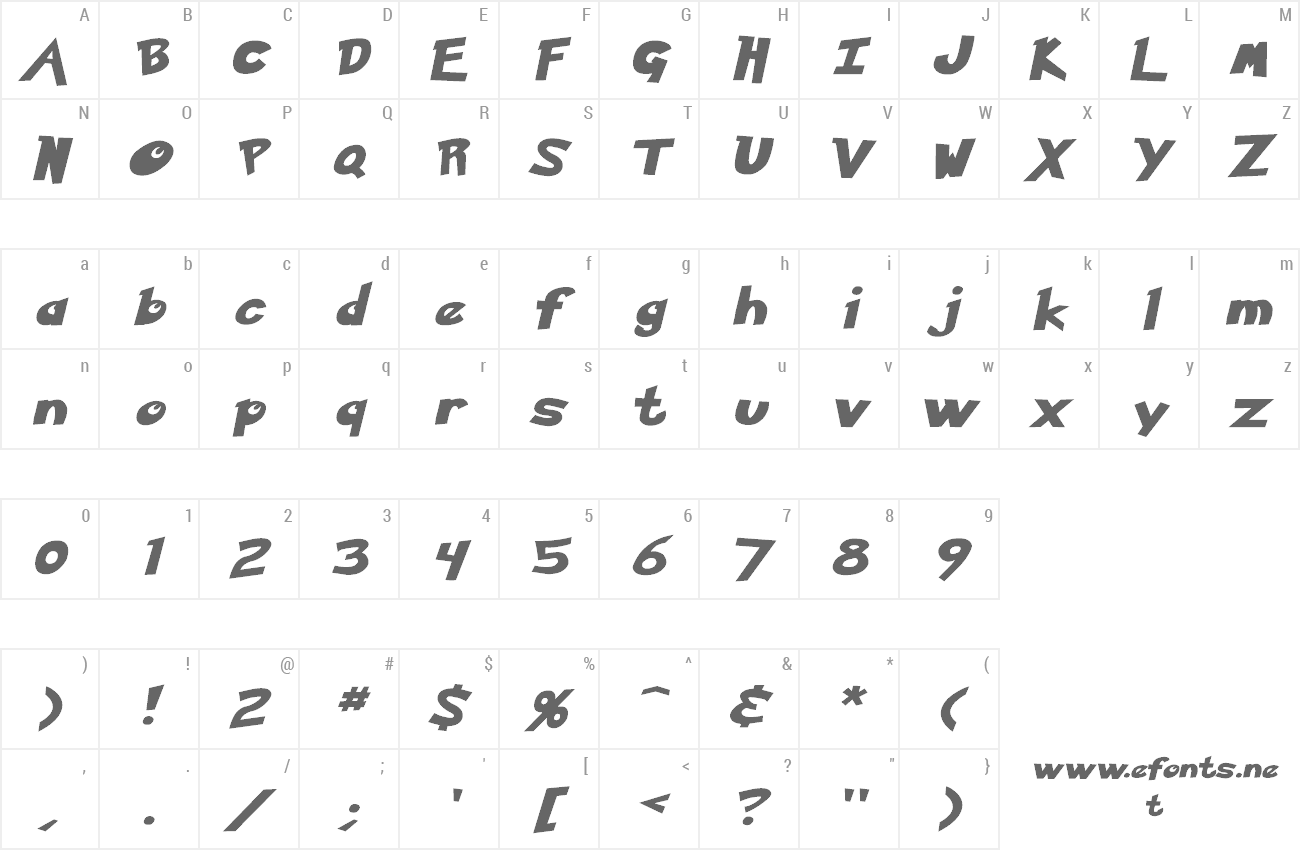
Preview and download Ketchum Font. Created by Pixel Sagas in Fancy Cartoon styles with Free for personal use license.
| Ketchum is a kid-like decorative typeface based on the title logo of Nintendo’s “Pokemon” game and animation franchise. Includes full alphabet, numerals, extended punctuation and euro. Includes regular and italic versions. |